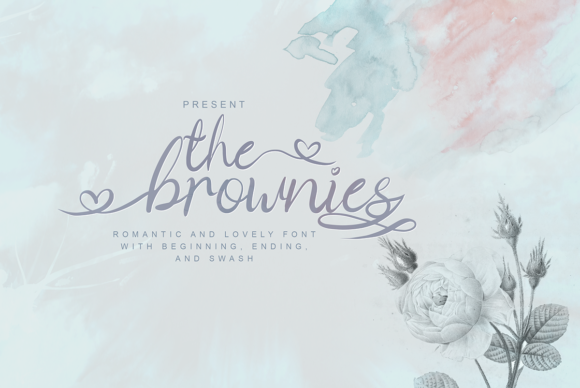
Step into a world of elegance and charm with The Brownies Font, a delicate and mesmerizing display font crafted by the talented DLetters.std. This script font exudes sophistication and playfulness, making it the perfect choice for those seeking to create captivating designs with a touch of romantic flair.
Adorned with sweeping curves, graceful flourishes, and a delightful playfulness, The Brownies Font is a visual masterpiece that will transform your creative projects into works of art. Whether you're designing wedding invitations, greeting cards, branding materials, or social media graphics, this font will add a touch of magic and allure to your creations.
With its PUA encoding, The Brownies Font grants you effortless access to a world of glyphs and swashes, unlocking endless possibilities for customization. Unleash your creativity and let this font guide you as you craft designs that resonate with emotion and captivate your audience.
Embrace the beauty of The Brownies Font and embark on a creative journey filled with elegance, romance, and charm. Let your designs blossom with the timeless allure of this magnificent script font.